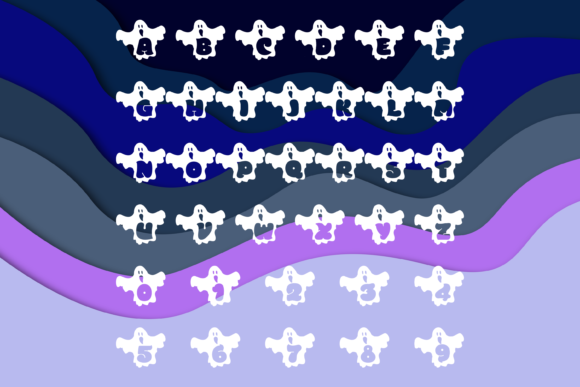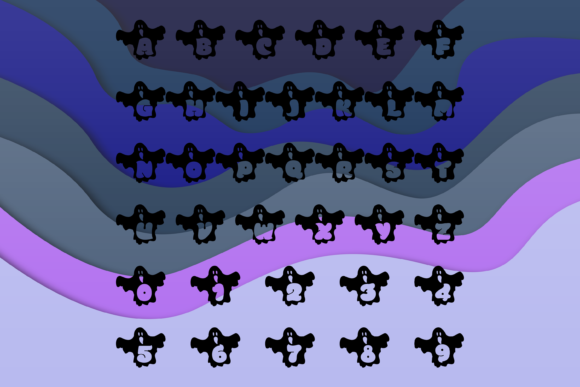
The Spooky Charm of Boo Boo Font: A Designer’s Delight
I still remember the year I was tasked with creating a Halloween-themed design for a client’s party invitation. I had a clear vision of what I wanted to achieve – a spooky, yet playful design that would set the tone for a fun and eerie celebration. However, I was struggling to find the perfect font to bring my design to life. That’s when I stumbled upon the Boo Boo font, and it instantly became the missing piece to my design puzzle. In this article, I’ll share my experience with this incredibly cool and spooky decorative font, and how it can elevate your Halloween designs.
An Honest Review of Boo Boo Font
So, what makes Boo Boo font so special? Let’s dive into the good stuff and some minor quirks.
What I Love About Boo Boo Font
• ✨ Unique and quirky design: Boo Boo font has a one-of-a-kind, hand-crafted look that adds a touch of personality to any design.
• ✅ Perfect for Halloween designs: The font’s spooky and playful vibe makes it an ideal choice for Halloween-themed designs, from party invitations to social media graphics.
• 💡 Highly versatile: Boo Boo font can be used for a wide range of design projects, from digital graphics to print materials.
While Boo Boo font is an excellent choice for many design projects, there are a few minor quirks to be aware of:
• 🤔 Limited legibility: As with many decorative fonts, Boo Boo font may not be the best choice for body text or long paragraphs, as it can be difficult to read.
• ⚠️ Not suitable for all design styles: Boo Boo font’s playful and spooky vibe may not fit with every design style or brand aesthetic.
The Backstory of Boo Boo Font
The Boo Boo font was designed by a creative team that wanted to capture the essence of Halloween in a unique and playful way. Inspired by classic cartoons and spooky decorations, the team crafted a font that’s both eerie and charming. While the exact details of the design process are unknown, it’s clear that the team poured their hearts into creating a font that’s perfect for adding a touch of Halloween magic to any design.
Font Name Boo Boo Font
Author WADLEN
Q: What type of designs is Boo Boo font best suited for?
A: Boo Boo font is perfect for Halloween-themed designs, such as party invitations, social media graphics, and print materials.
Q: Is Boo Boo font easy to read?
A: While Boo Boo font is a beautiful and unique font, it may not be the best choice for body text or long paragraphs, as it can be difficult to read.